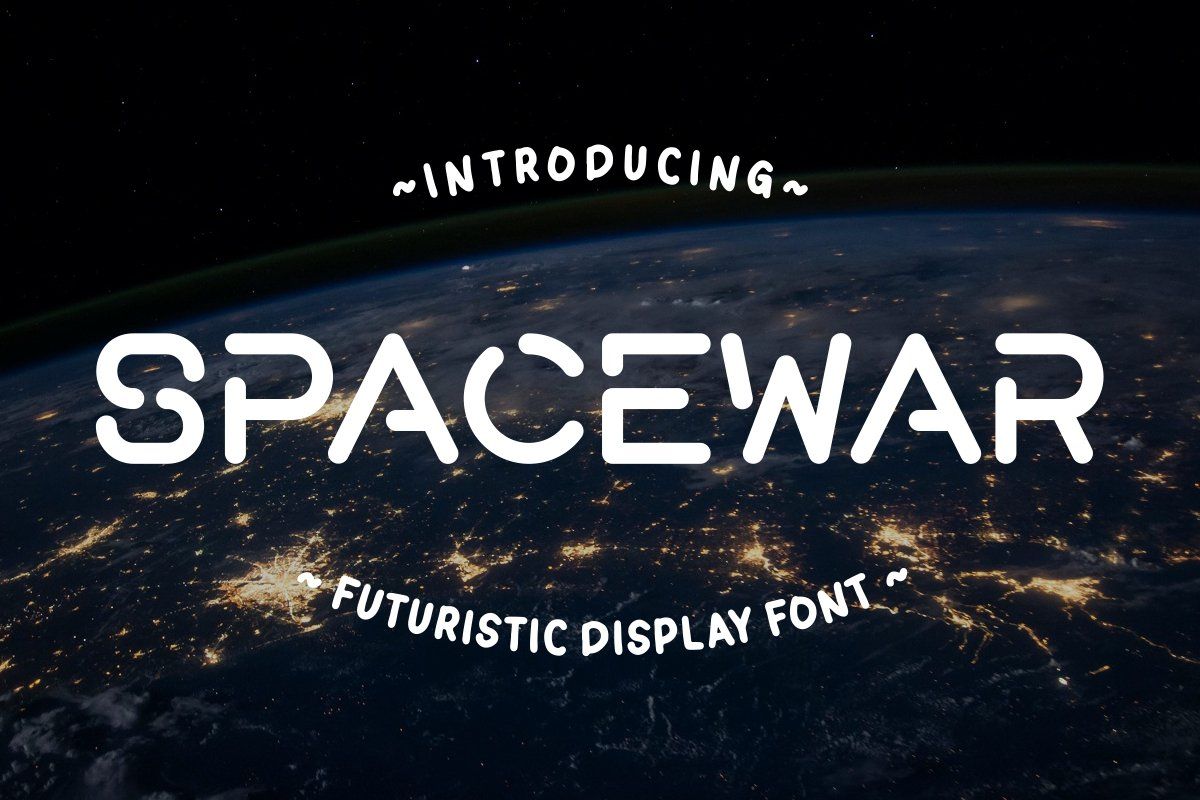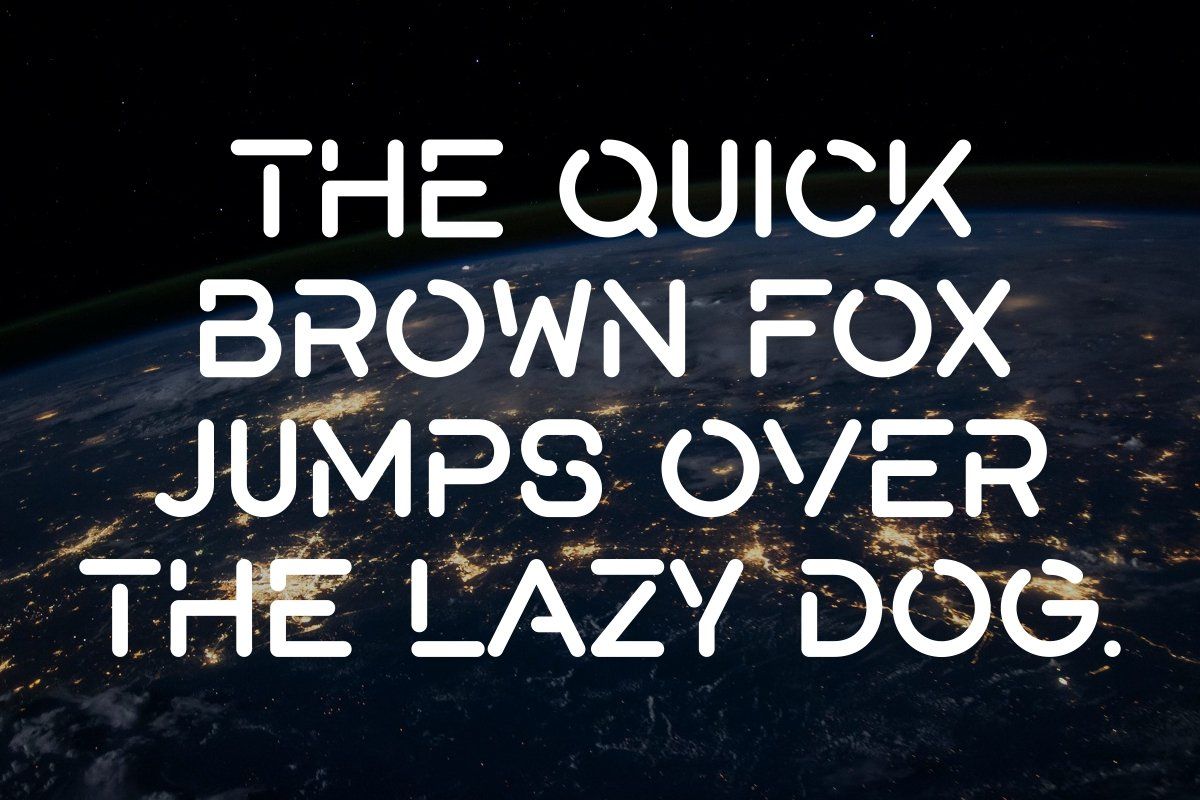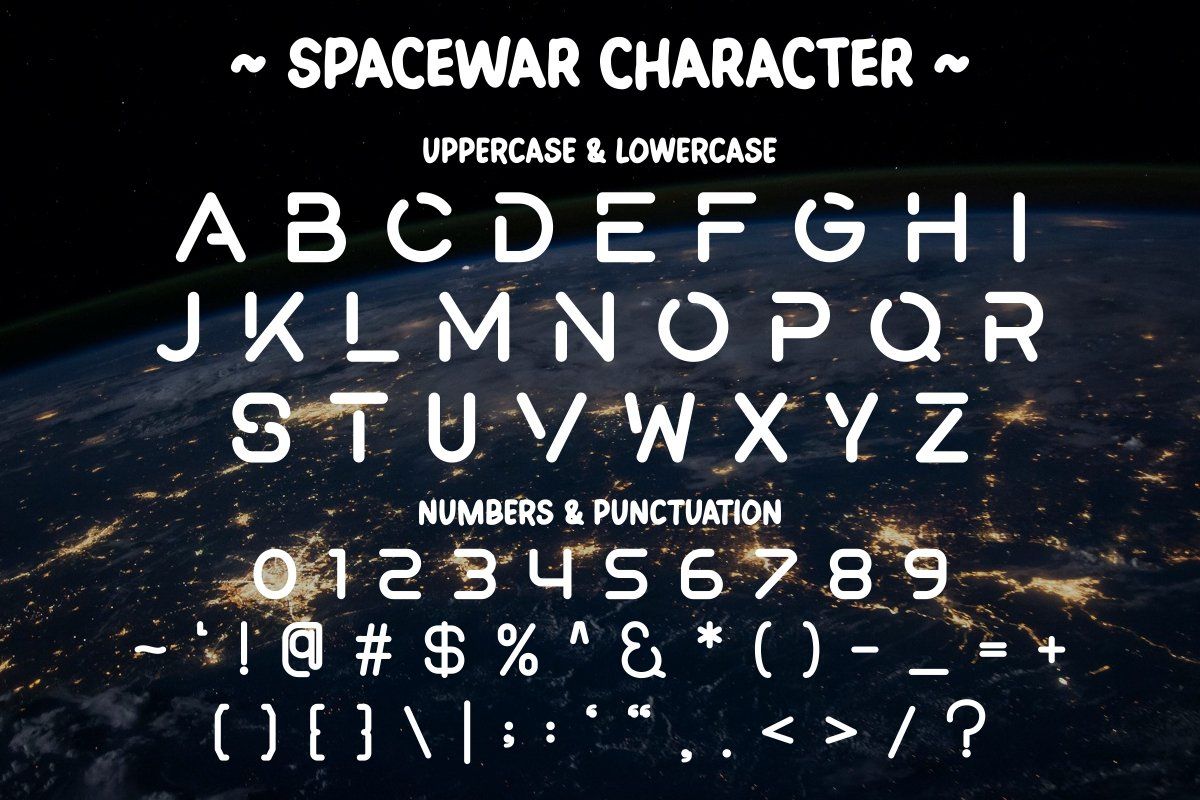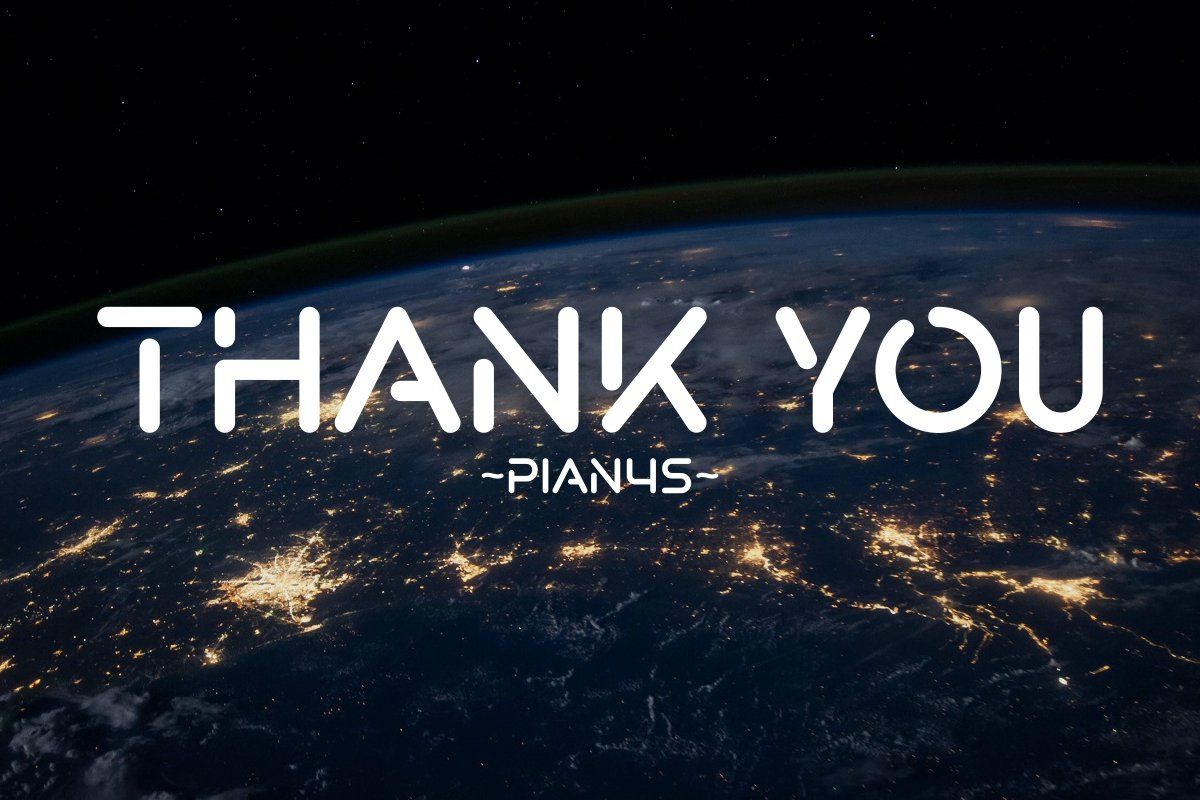
Embark on a cosmic journey with ‘SpaceWar,’ our futuristic display font that seamlessly blends the wonders of space exploration with a modern touch. This typeface is designed to elevate your designs into the realms of the future, making it ideal for space-themed branding, sci-fi posters, and futuristic projects.